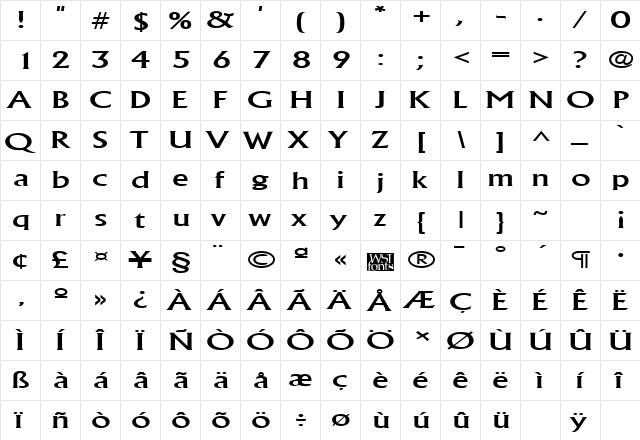
AlbertaWide Regular
Design Context for AlbertaWide Typeface
AlbertaWide takes a measured approach to typography — its balanced proportions and neutral character make it a reliable workhorse for both digital and print work.
Pro Tip: Use AlbertaWide in both headline and body roles to test its range before committing to a single application.